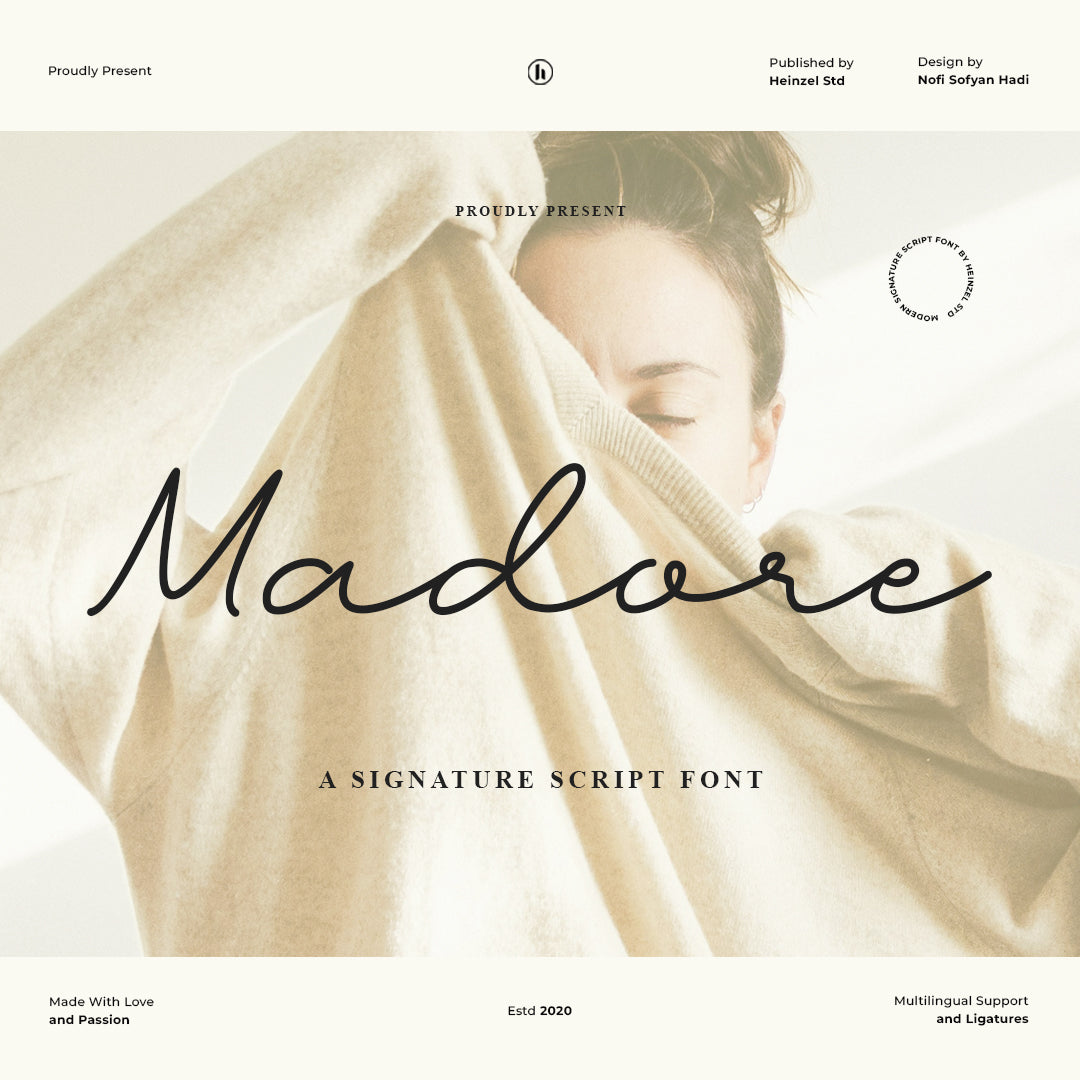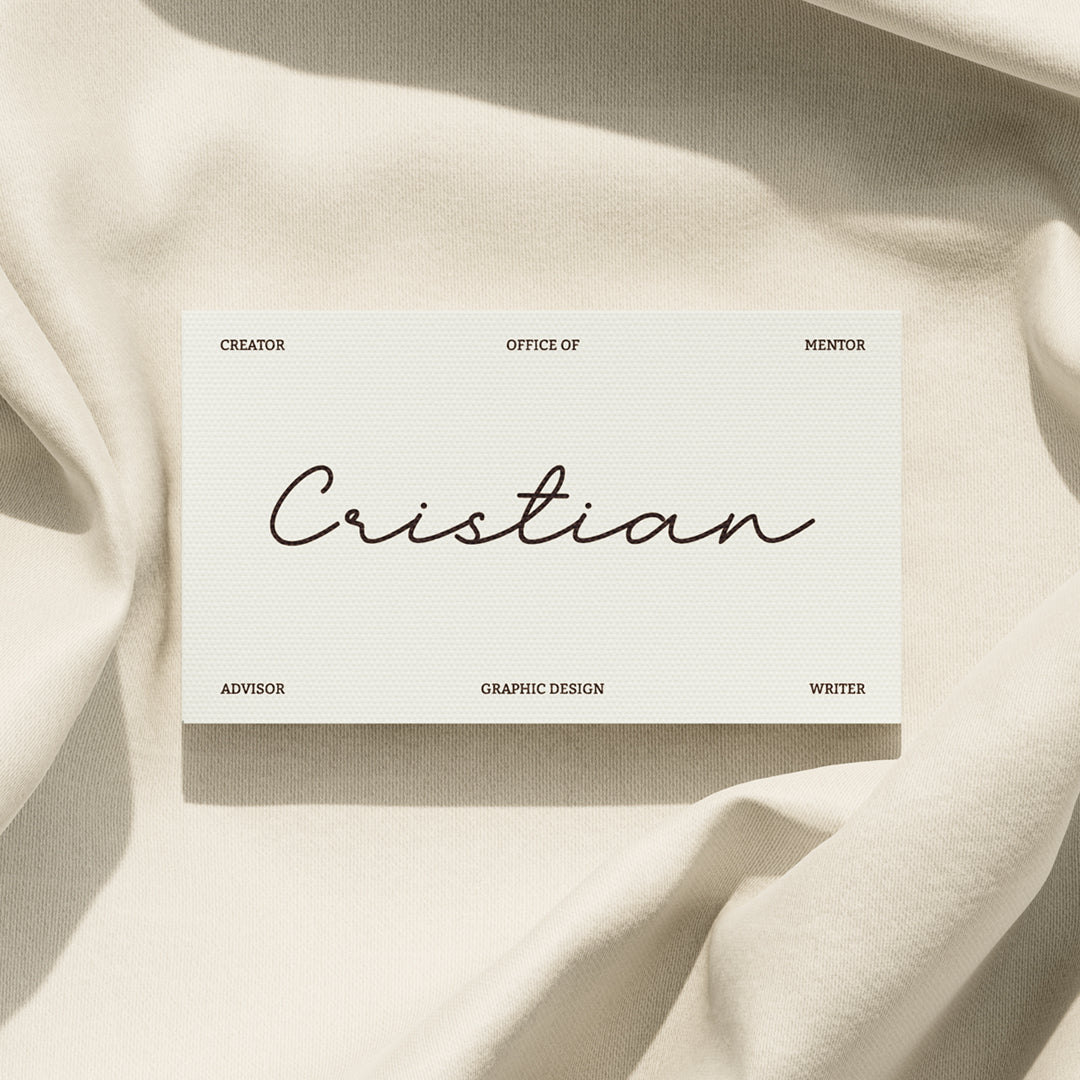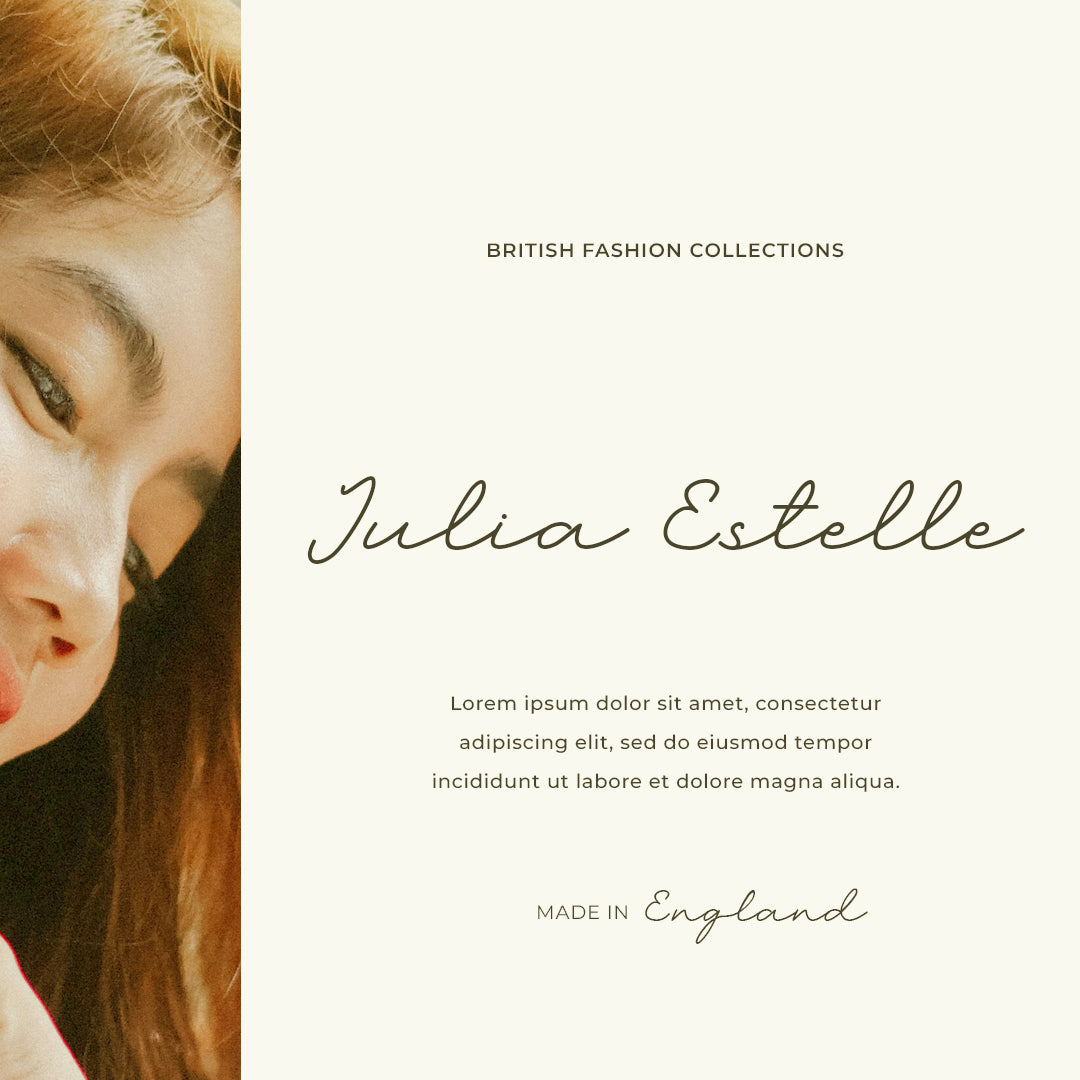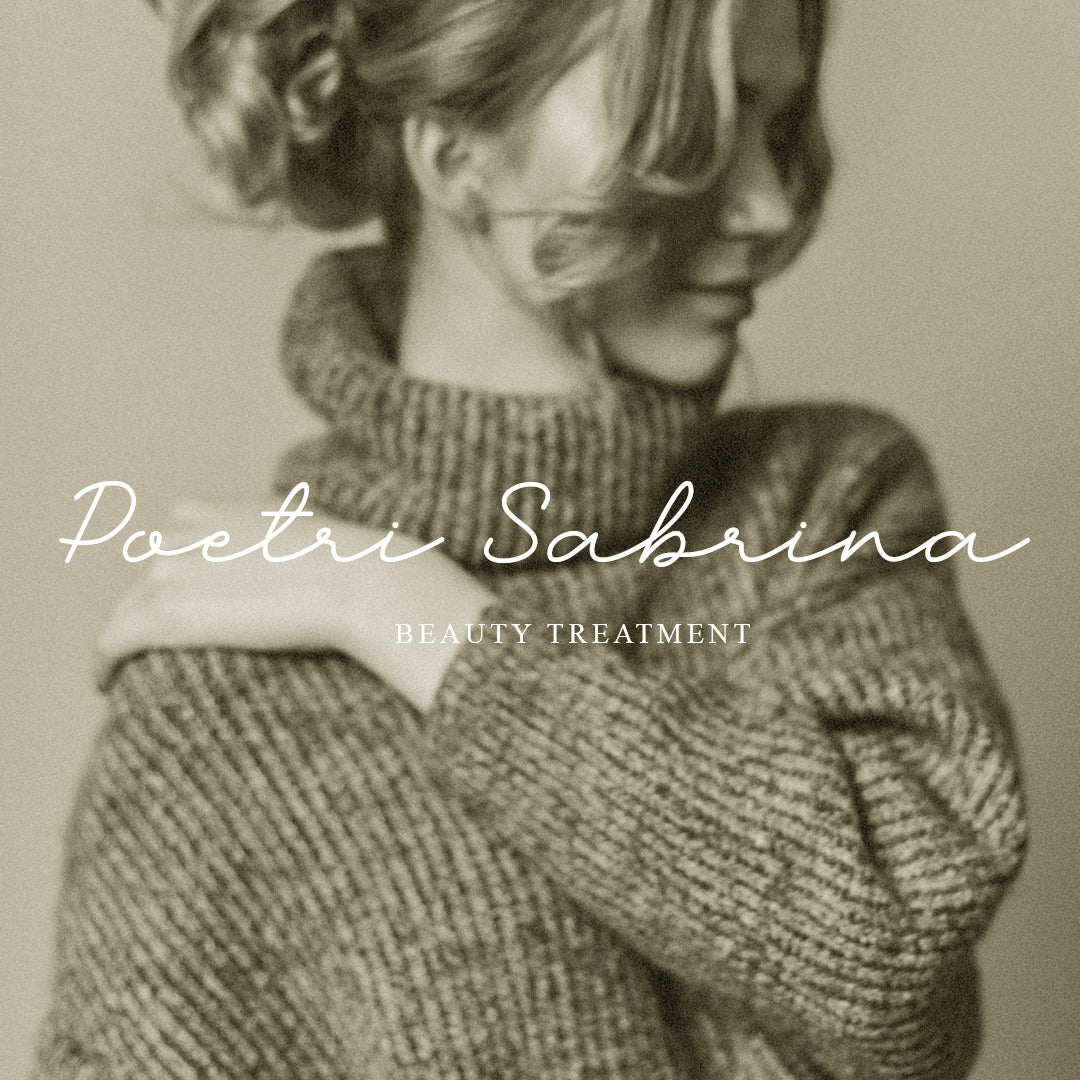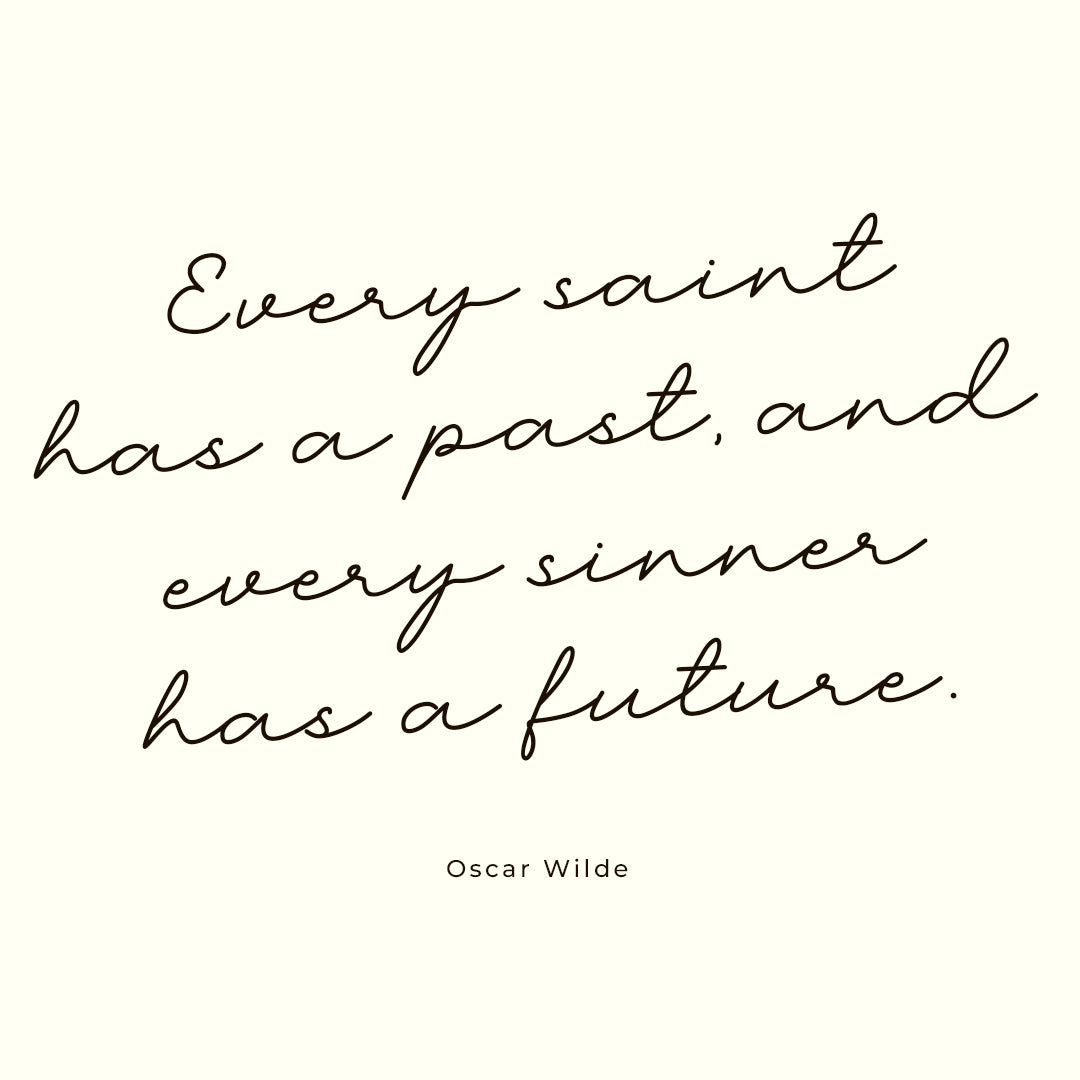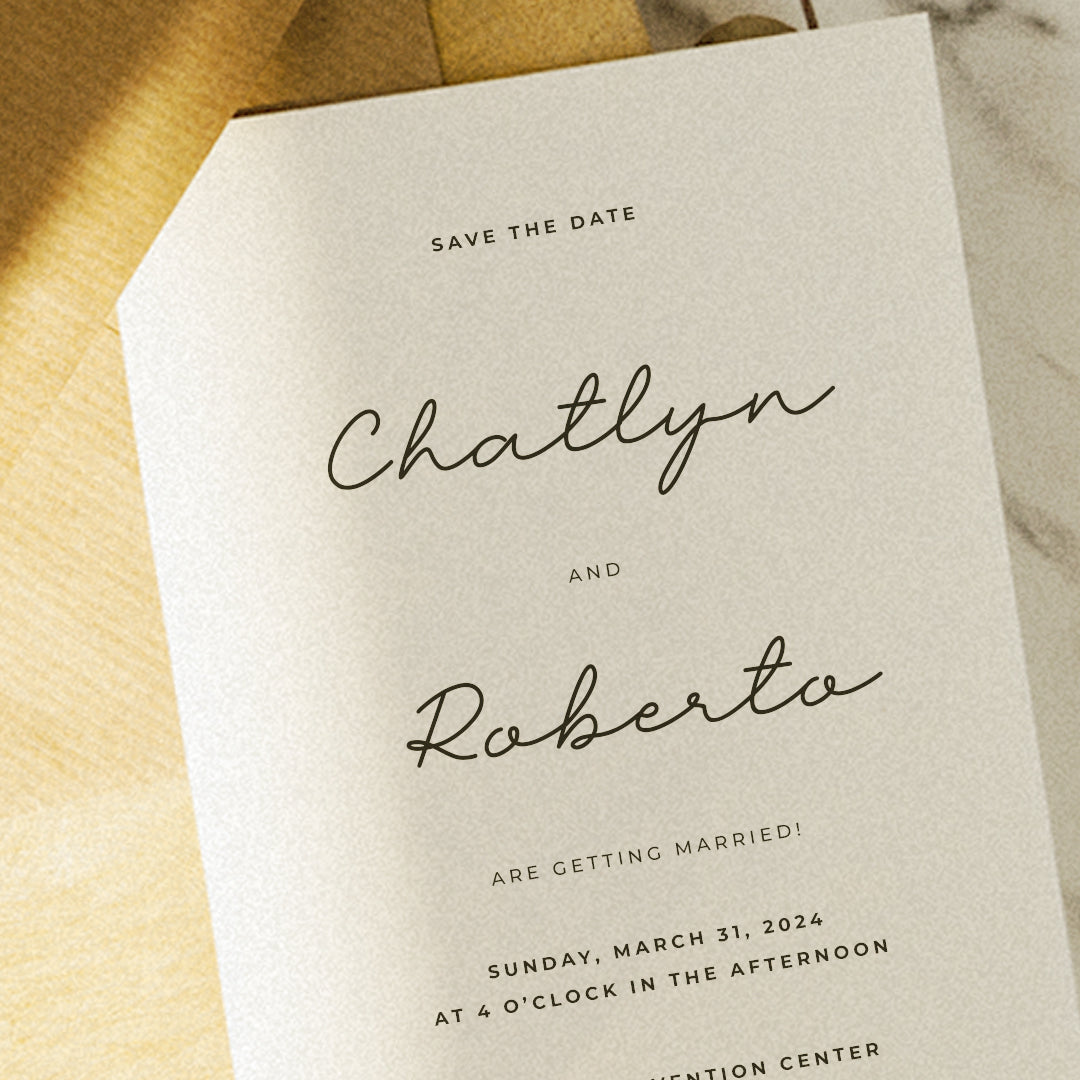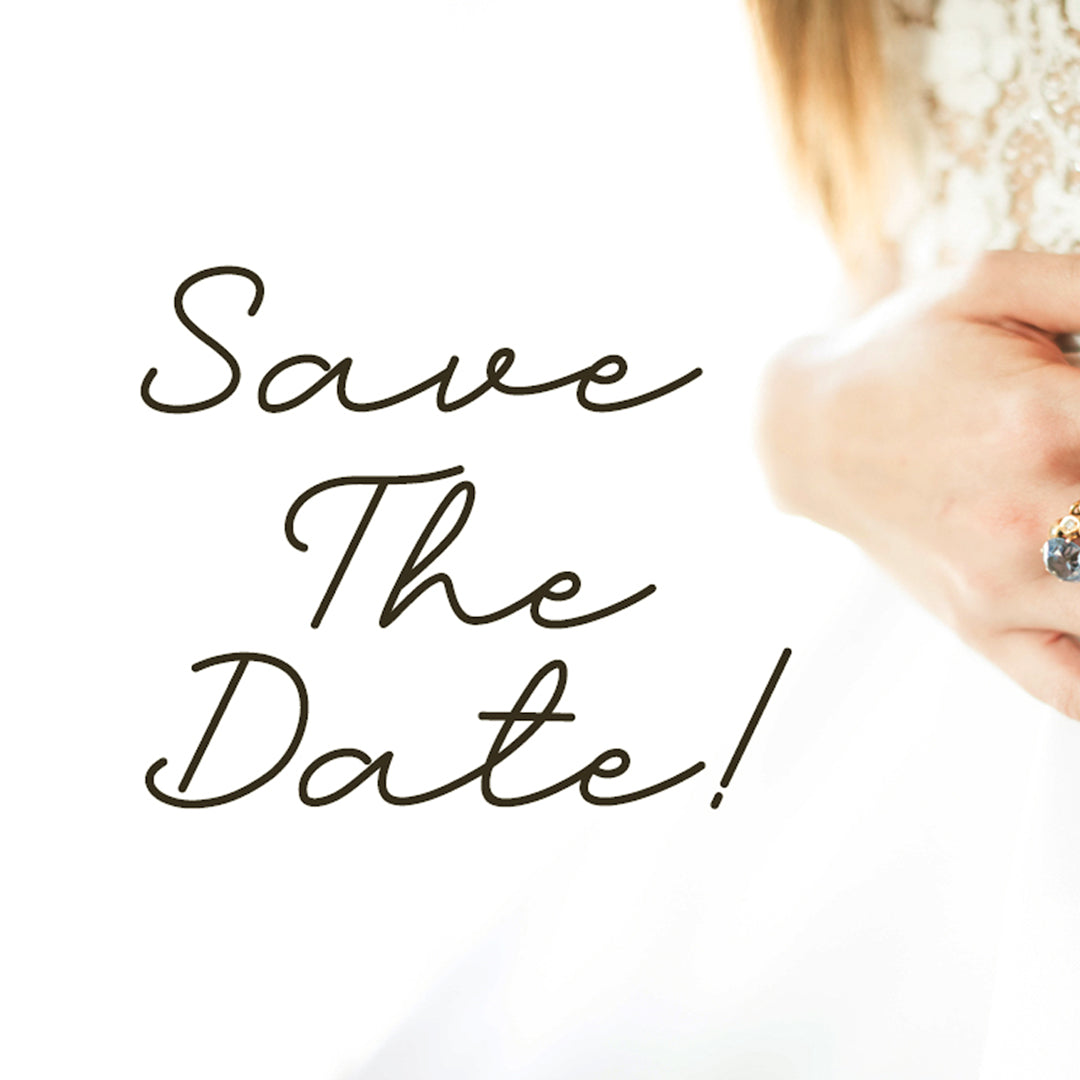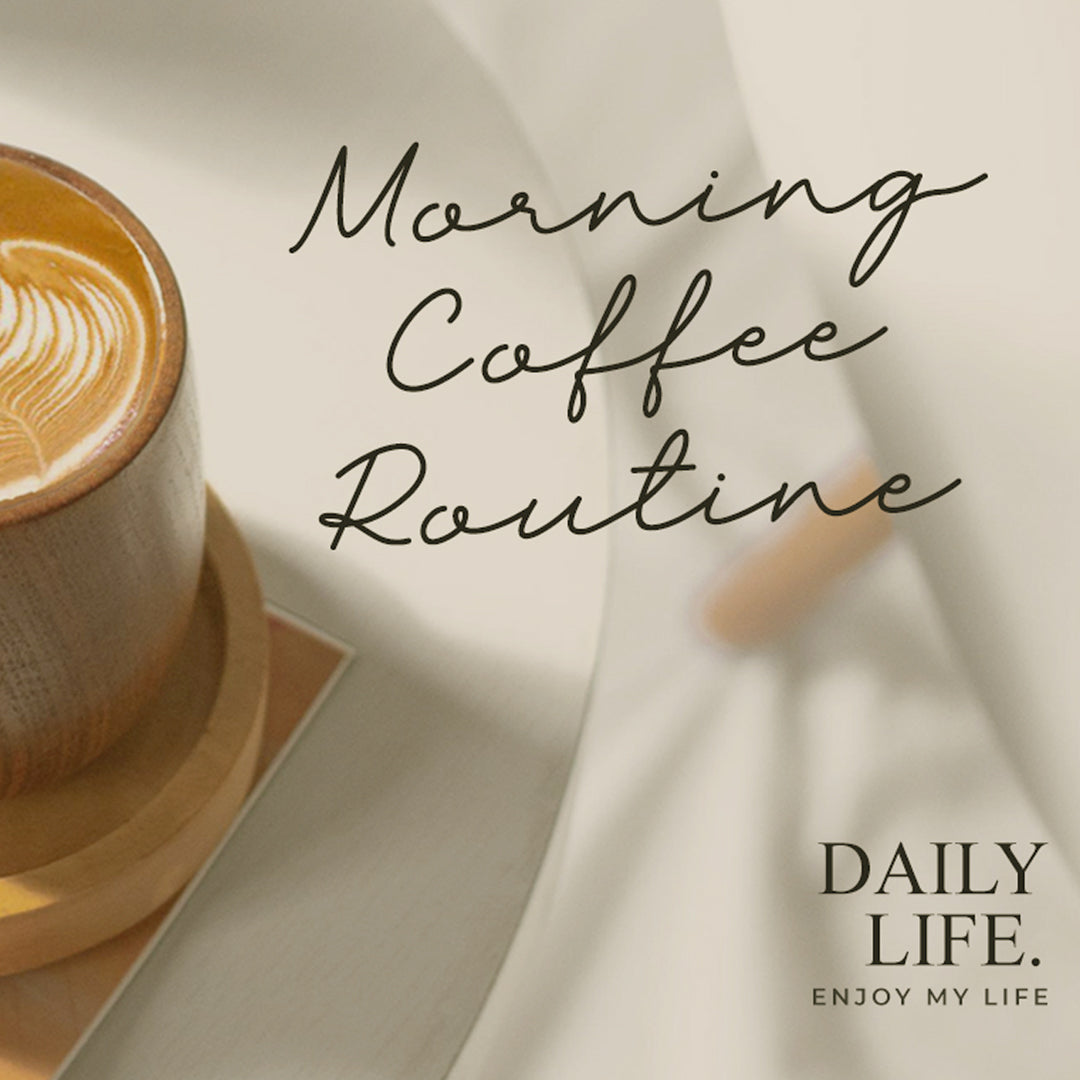
Madore Elegant Signature Script Font
Madore is an elegant signature script font crafted to bring a sophisticated, personal, and luxurious touch to your designs. With its smooth handwritten flow, graceful letter connections, and refined character, Madore captures the feeling of an authentic handwritten signature while maintaining a polished and modern appearance.
Perfect for fashion branding, beauty products, wedding stationery, logos, photography, social media, packaging, invitations, editorial designs, and personal branding, Madore adds an effortlessly stylish personality to every project.
Its flowing script style works beautifully for both minimalist compositions and high-end creative layouts. Multilingual support and ligatures provide additional flexibility, helping you create natural-looking typography with a distinctive handcrafted feel.
Whether you're designing a luxury brand identity, romantic wedding invitation, boutique logo, or stylish social media graphic, Madore is designed to make your words feel personal, elegant, and memorable.
Madore is a signature script font featuring handwritten letter connections and multilingual support with ligatures. It is designed for applications requiring a script-style typeface with a personal, handcrafted appearance.